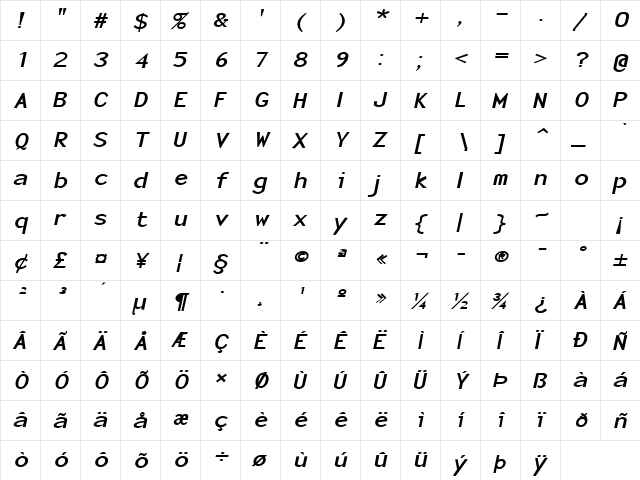
Sensor-Extended Bold Italic
Design Context for Sensor-Extended Typeface
Sensor-Extended is a composed and adaptable typeface that performs quietly and consistently across a wide range of design contexts. The dynamic lean of this cut emphasises speed and emphasis in any layout. Its bold stroke weight gives it real presence on the page.
Pro Tip: Try Sensor-Extended for annotation and caption copy alongside an upright companion — the contrast in angle creates a dynamic but ordered typographic system.